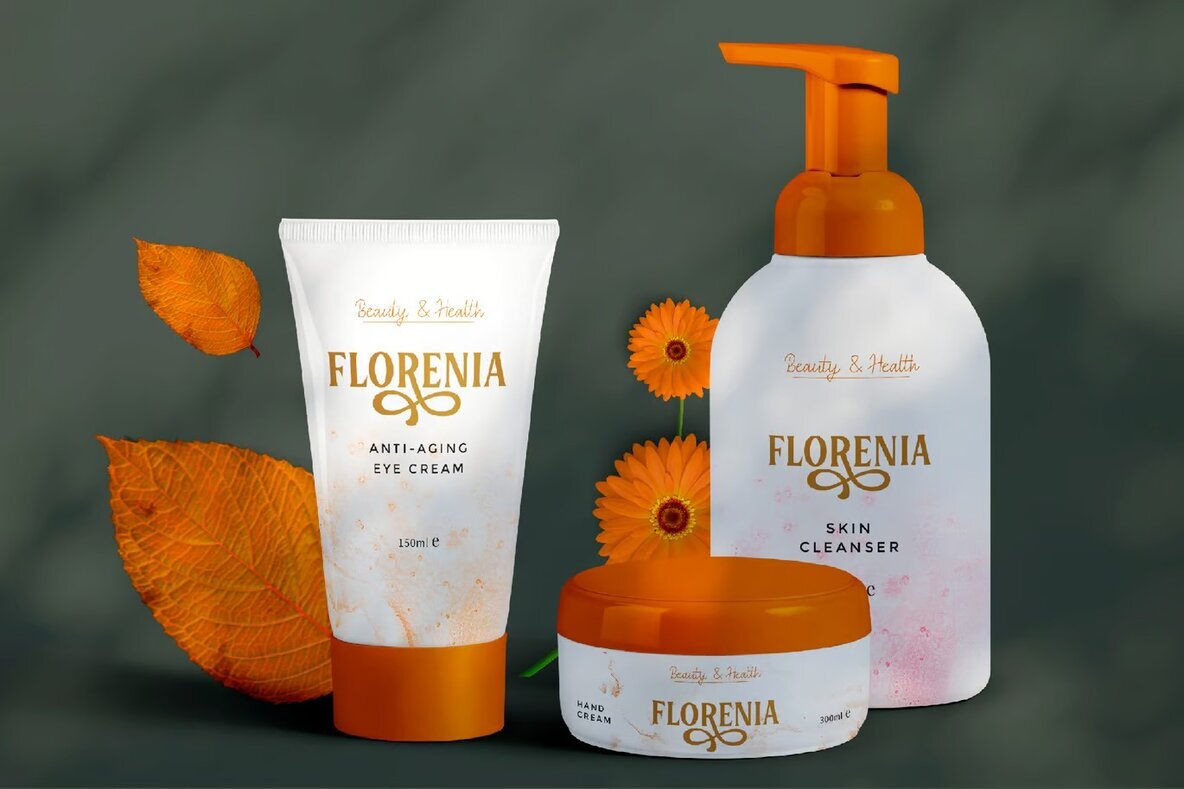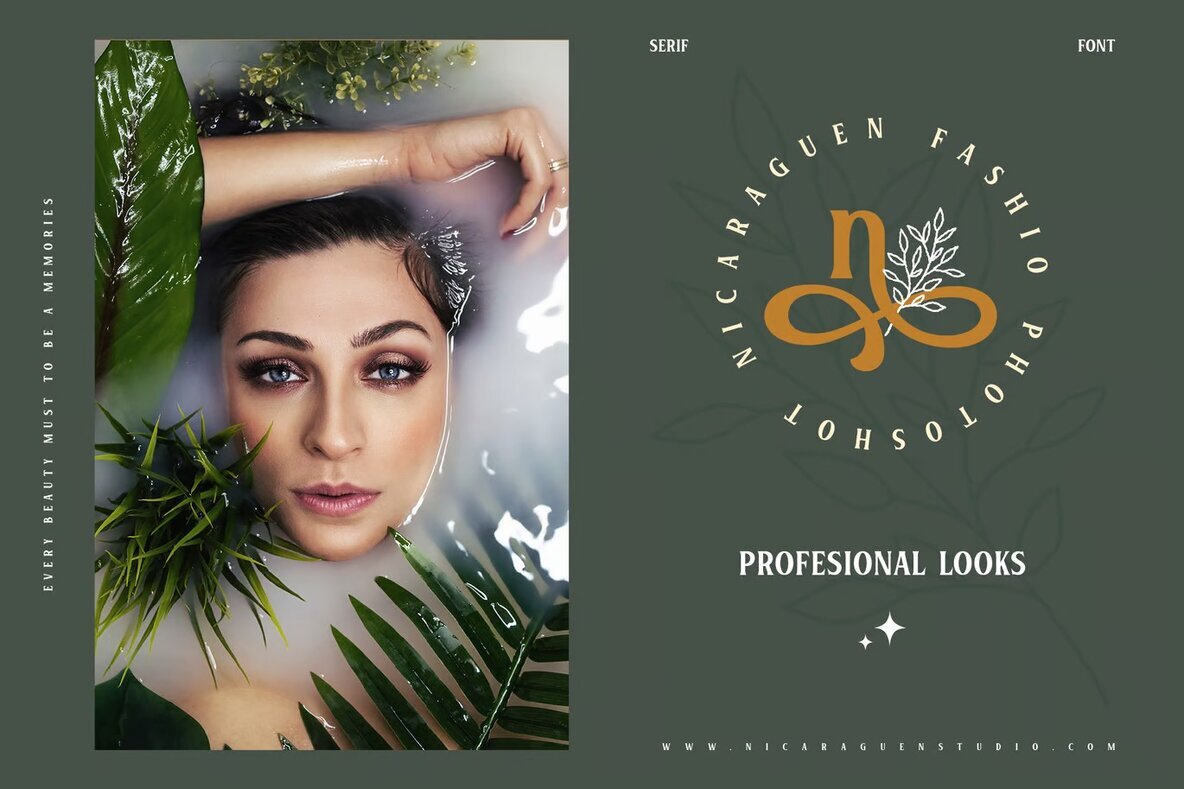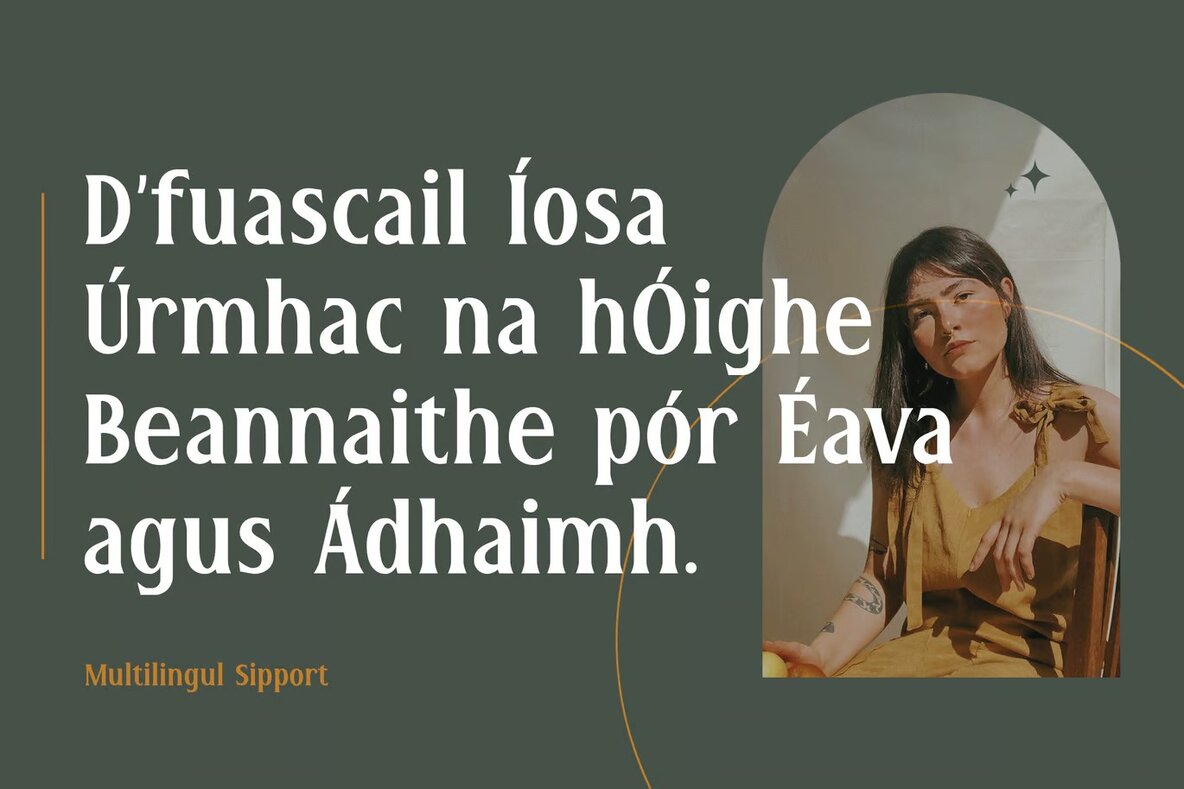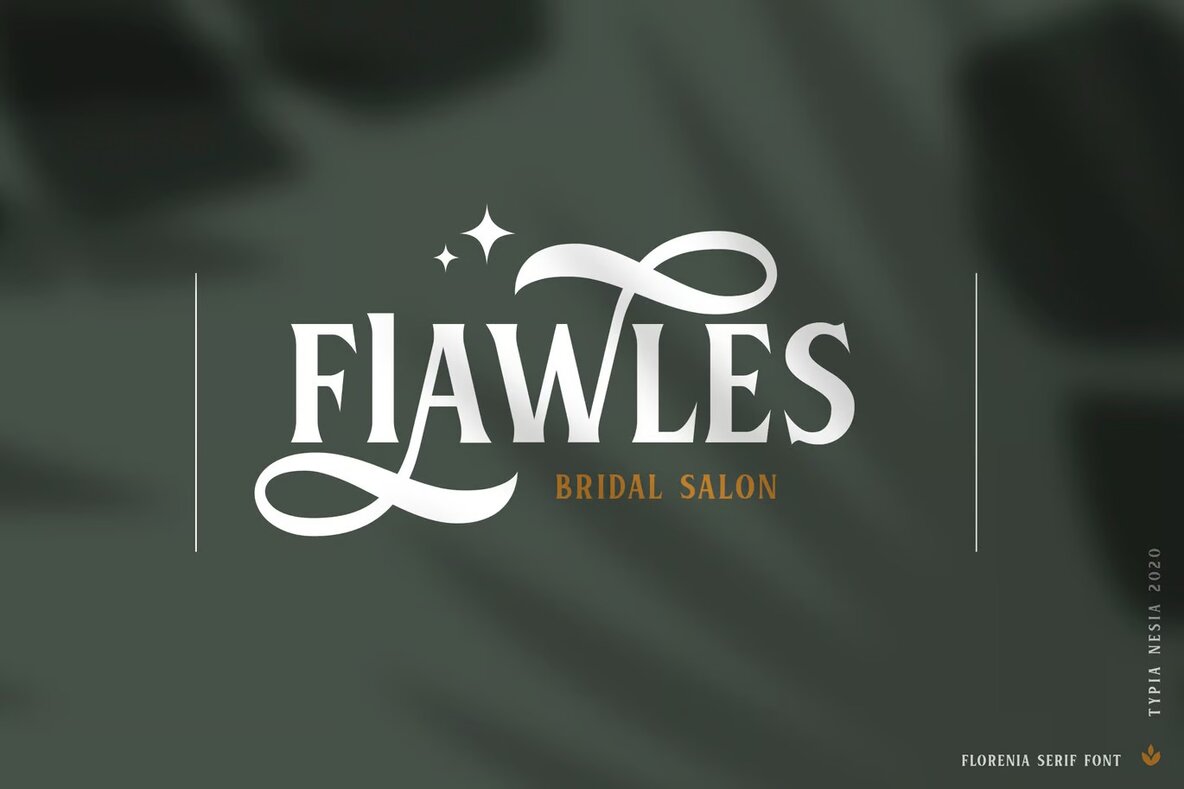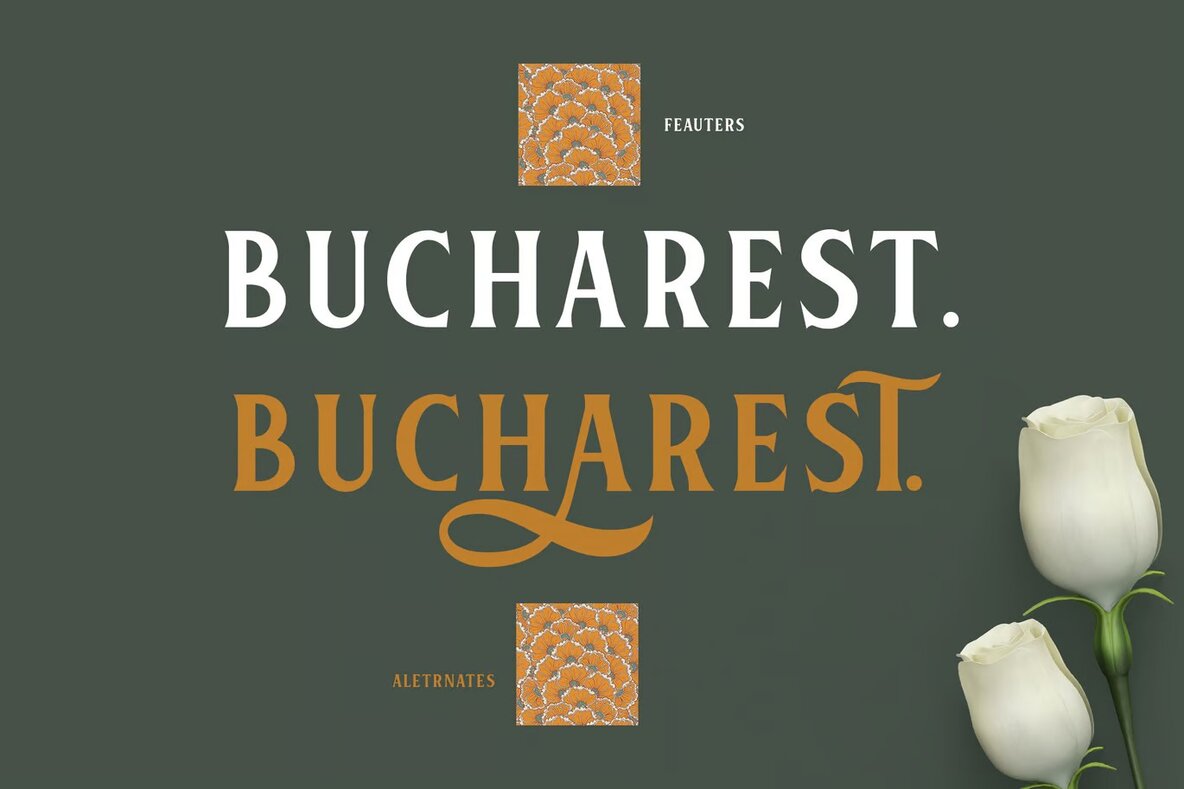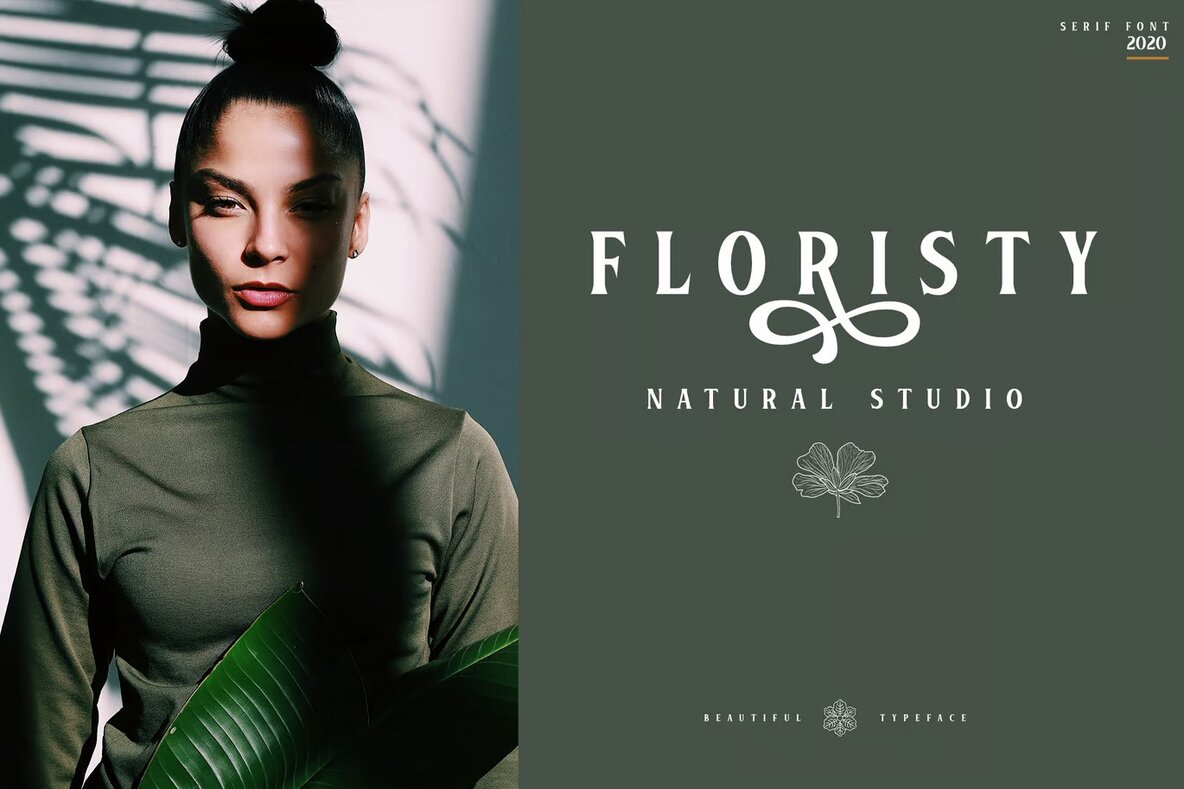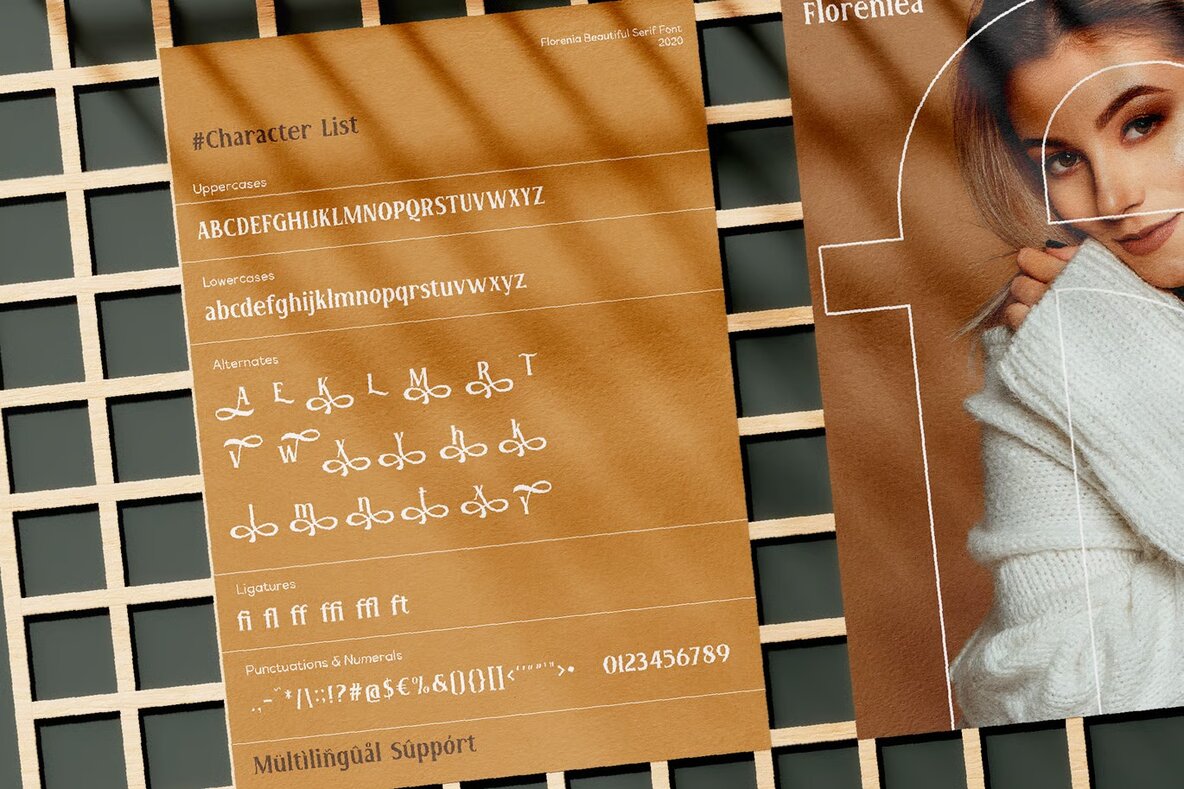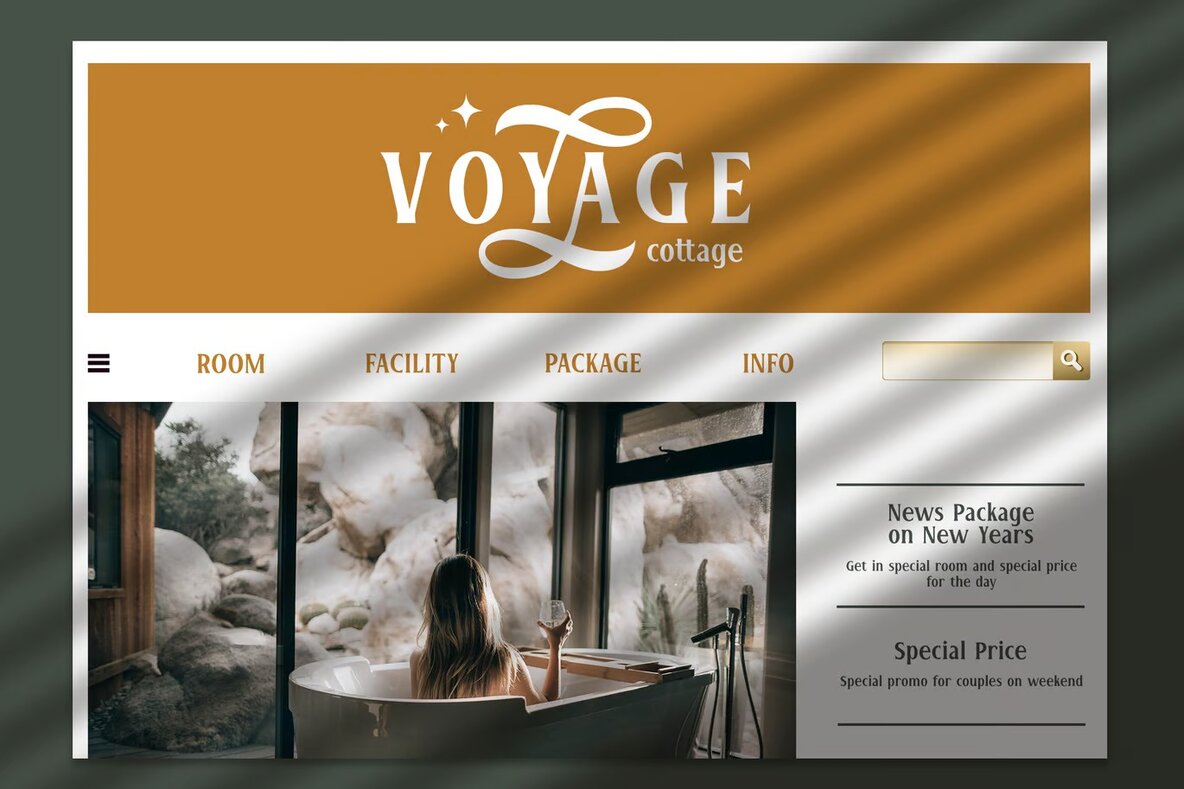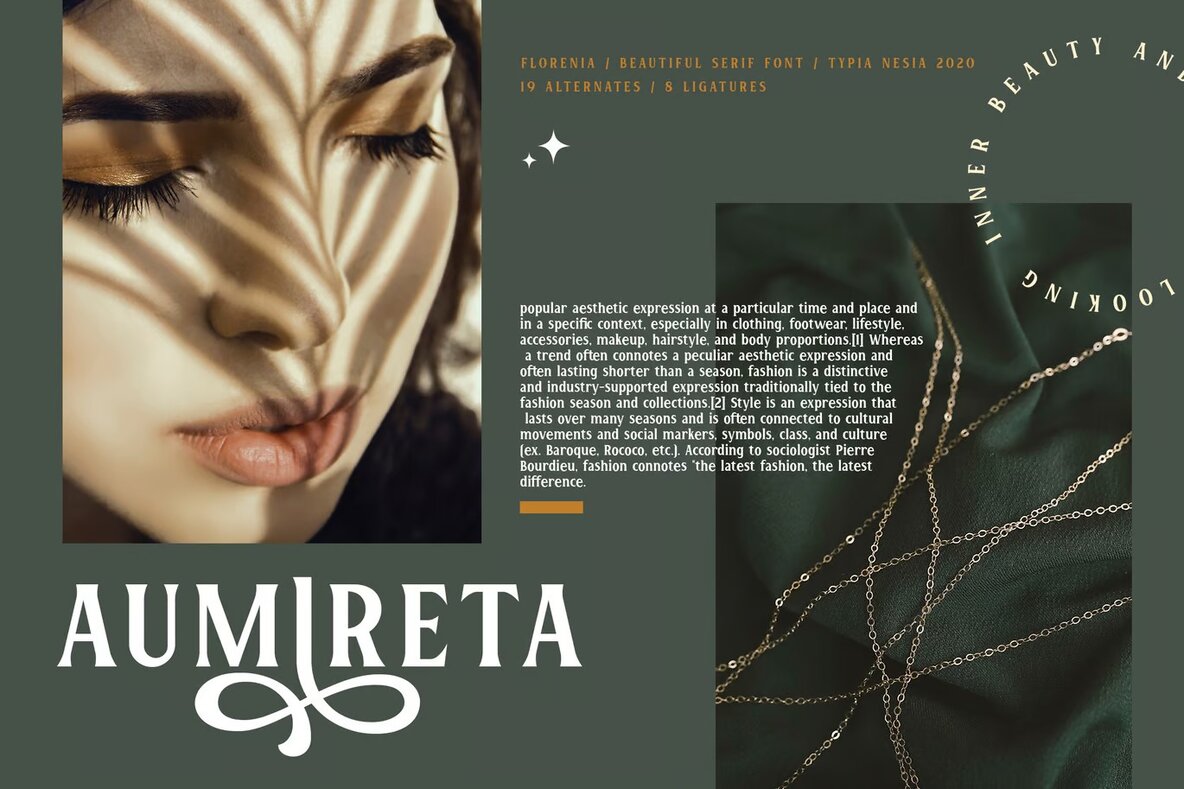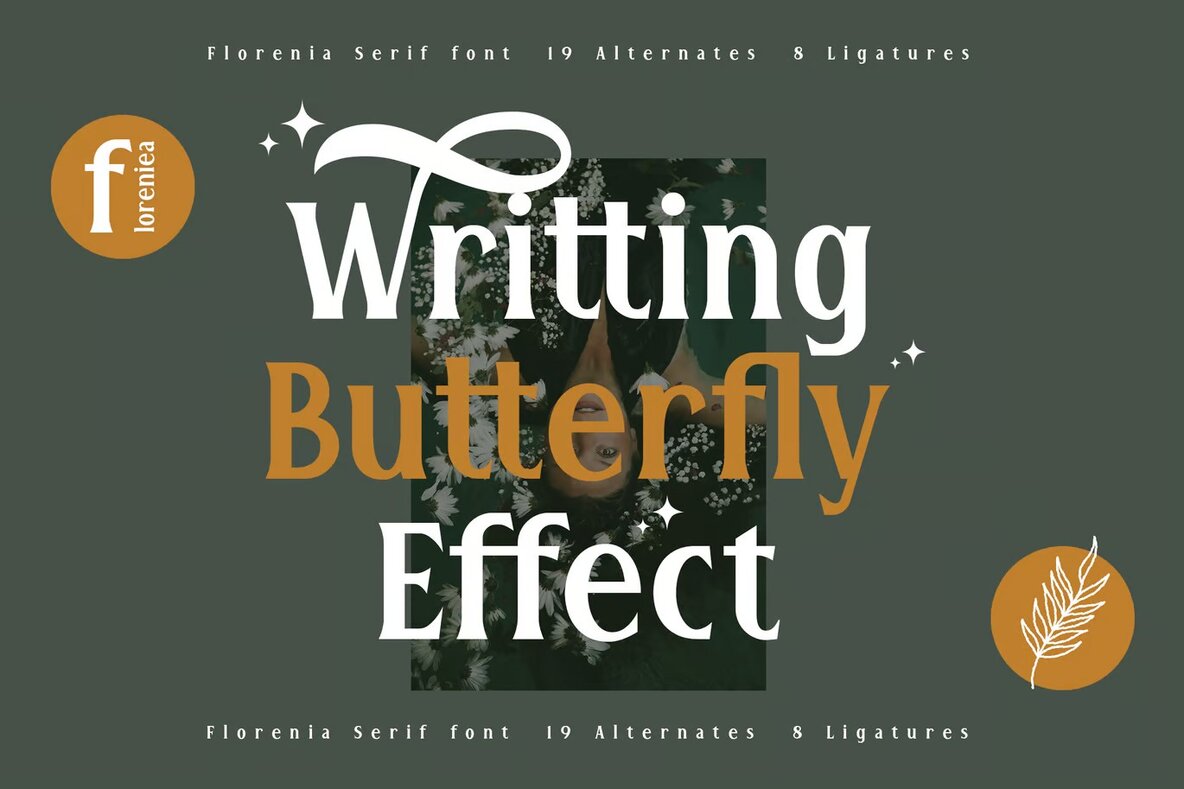
Florenia Font
Florenia Serif font is an ideal choice for a variety of creative projects. Its sophisticated design makes it perfect for luxury logos and branding, classy editorial layouts, and high-end magazine spreads. Utilize its elegance in fashion promotions or boutique branding to convey a sense of refinement and style.
This versatile serif font enhances modern advertising designs, card invitations, and stationery, adding a touch of class and sophistication. Its adaptability also makes it suitable for blog design, art quotes, and home décor, ensuring your work stands out. Florenia Serif is an excellent option for book titles, cover designs, special events, and numerous other creative endeavors.